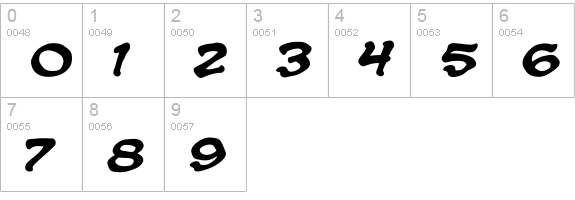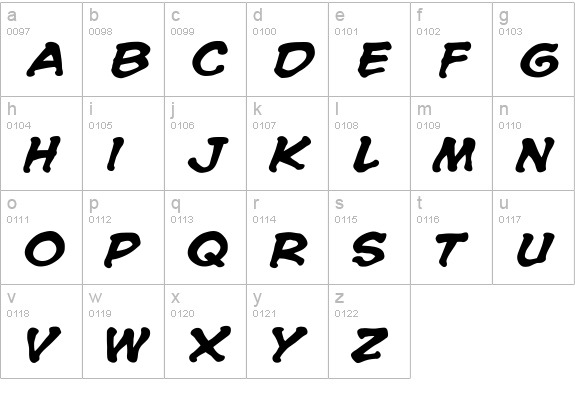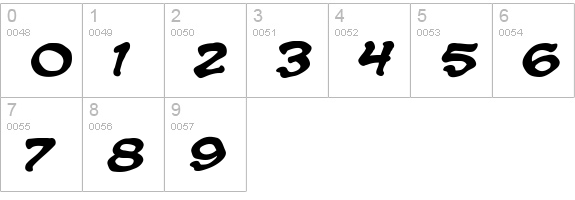
CCSpookytooth-BoldItalic Font Details
CCSpookytooth-BoldItalic font is a unique and bold typeface that exudes a spooky and mysterious vibe. Its italicized design adds a touch of drama and flair, making it perfect for Halloween-themed projects, horror movie posters, or any design that requires a macabre touch. The sharp angles and exaggerated curves of this font create a sense of tension and intrigue, drawing the viewer's eye in. This font is versatile and can be used for a variety of design projects, from branding to editorial design to social media graphics. Its bold presence demands attention and makes a statement, while its spooky undertones add a layer of depth and interest to any design. Best of all, CCSpookytooth-BoldItalic font is completely free to download at FontsMarket.com. Whether you're a professional designer looking to add a spooky twist to your projects or someone looking to create a unique Halloween party invitation, this font is sure to make a bold impression. Download it today and unleash your creativity with CCSpookytooth-BoldItalic font.